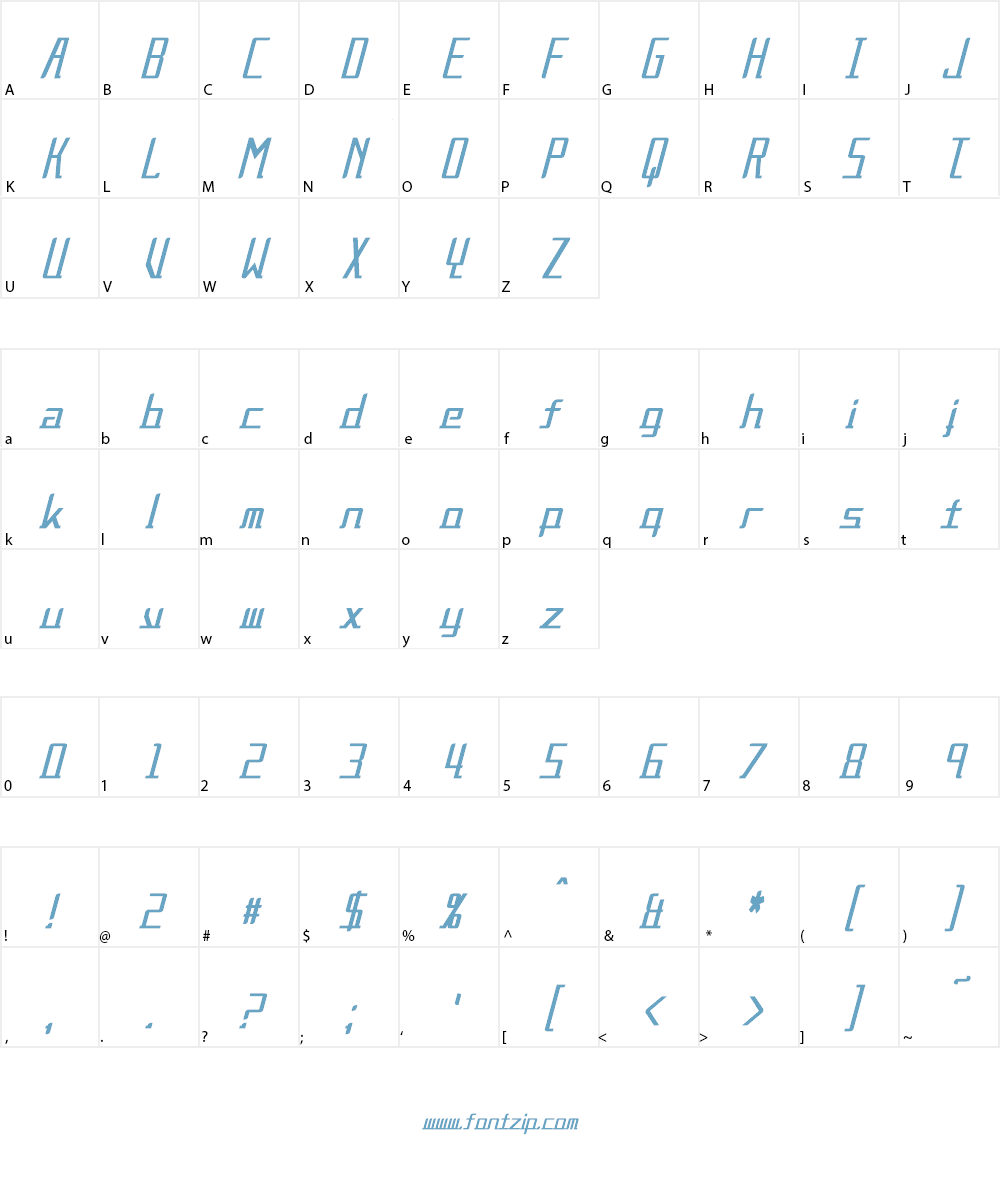
Alternation is a retro-chrome font is inspired from the title logo of Takara-Tomy’s Transformers: Alternity toyline. The typeface includes full alphabet, extended punctuation, and euro. It also comes available in italic and condensed styles.